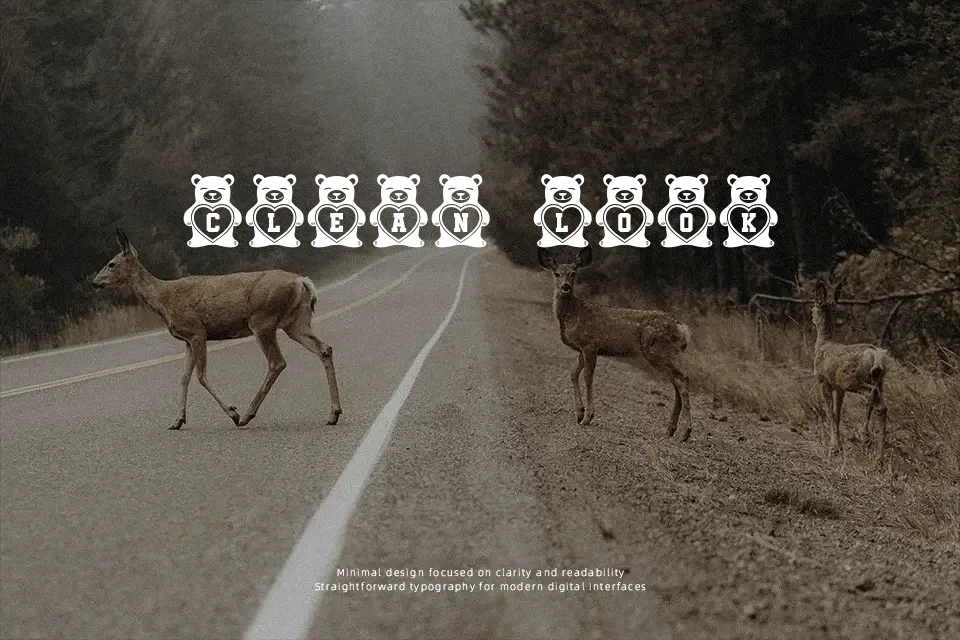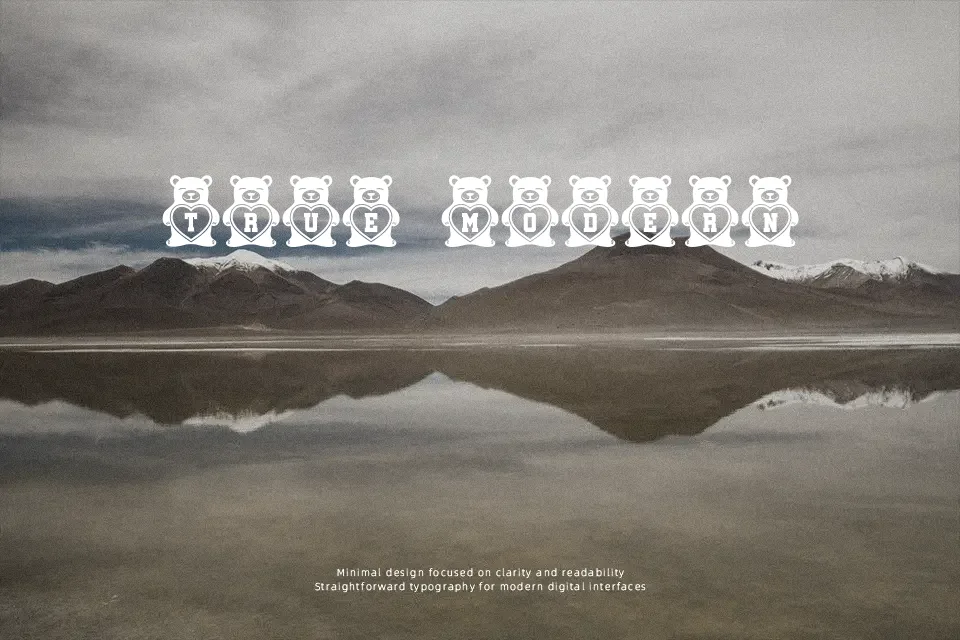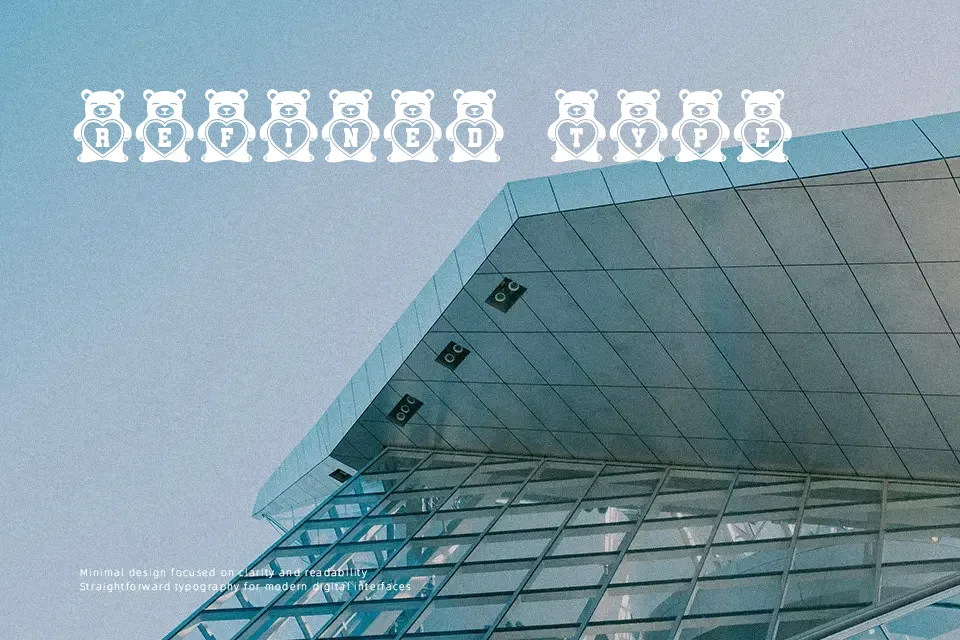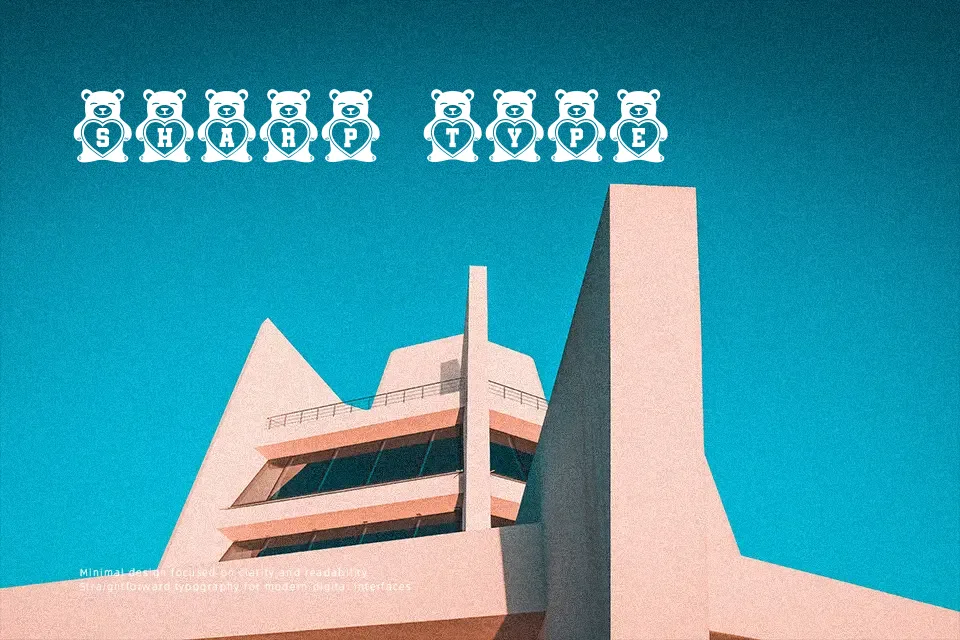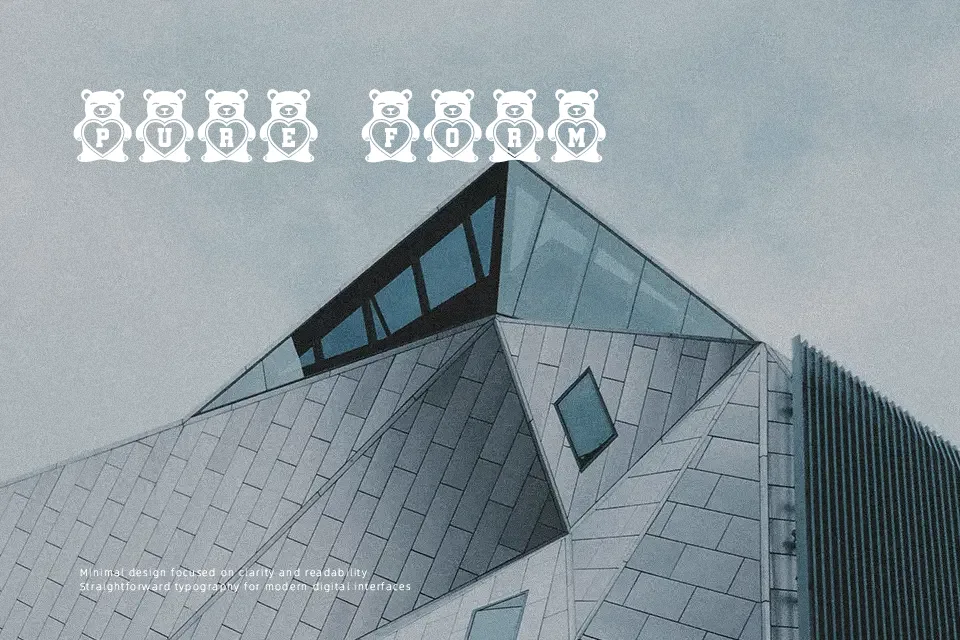
Teddy Bears Font
Teddy Bears Font combines bold, geometric letter skeletons with playful illustrative bear motifs integrated into every capital glyph. The letterforms display consistent heavy strokes and tight, rhythmic character spacing, allowing short words to form a cohesive decorative banner. Proportions remain uniform across the uppercase alphabet, delivering immediate visual impact in prominent titles while maintaining identifiable contours. Because the internal bear silhouettes add considerable structural density, clarity decreases sharply in compact environments. The typeface performs effectively in oversized headline settings where decorative cutouts can breathe, but it remains impractical for running text or smaller editorial captions.
Best For: children’s birthday invitations, toy store display banners, nursery wall art prints, juvenile book cover titles
Not Ideal For: continuous body text, mobile interface labels, corporate business documents, dense tabular spreadsheets
Perfect for headline, invitation, and kids, with a creative and cartoon style.